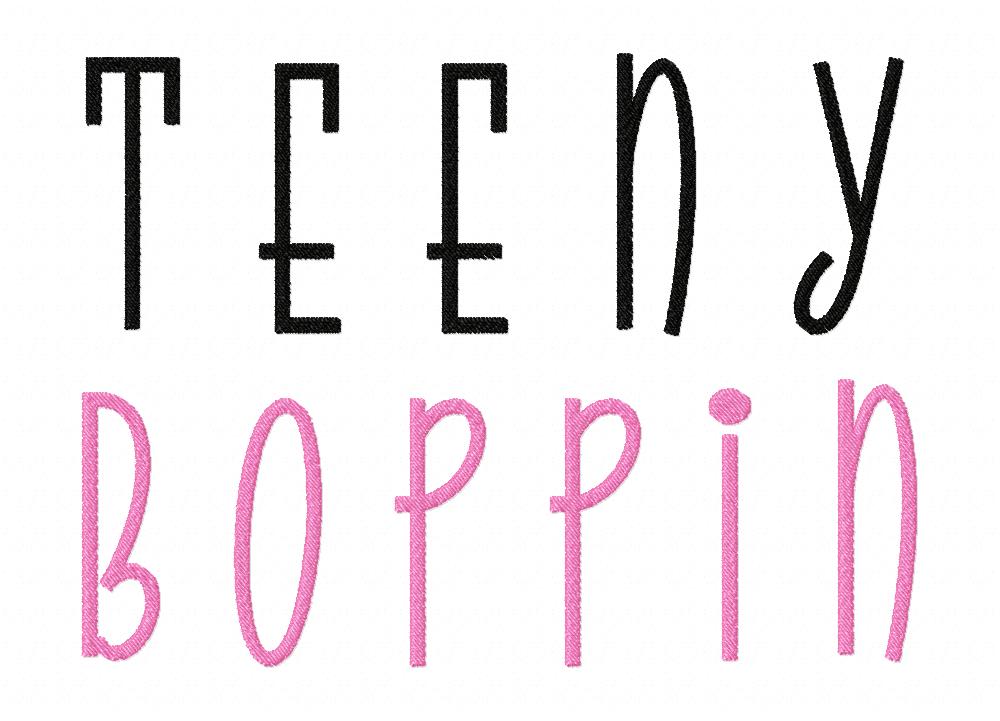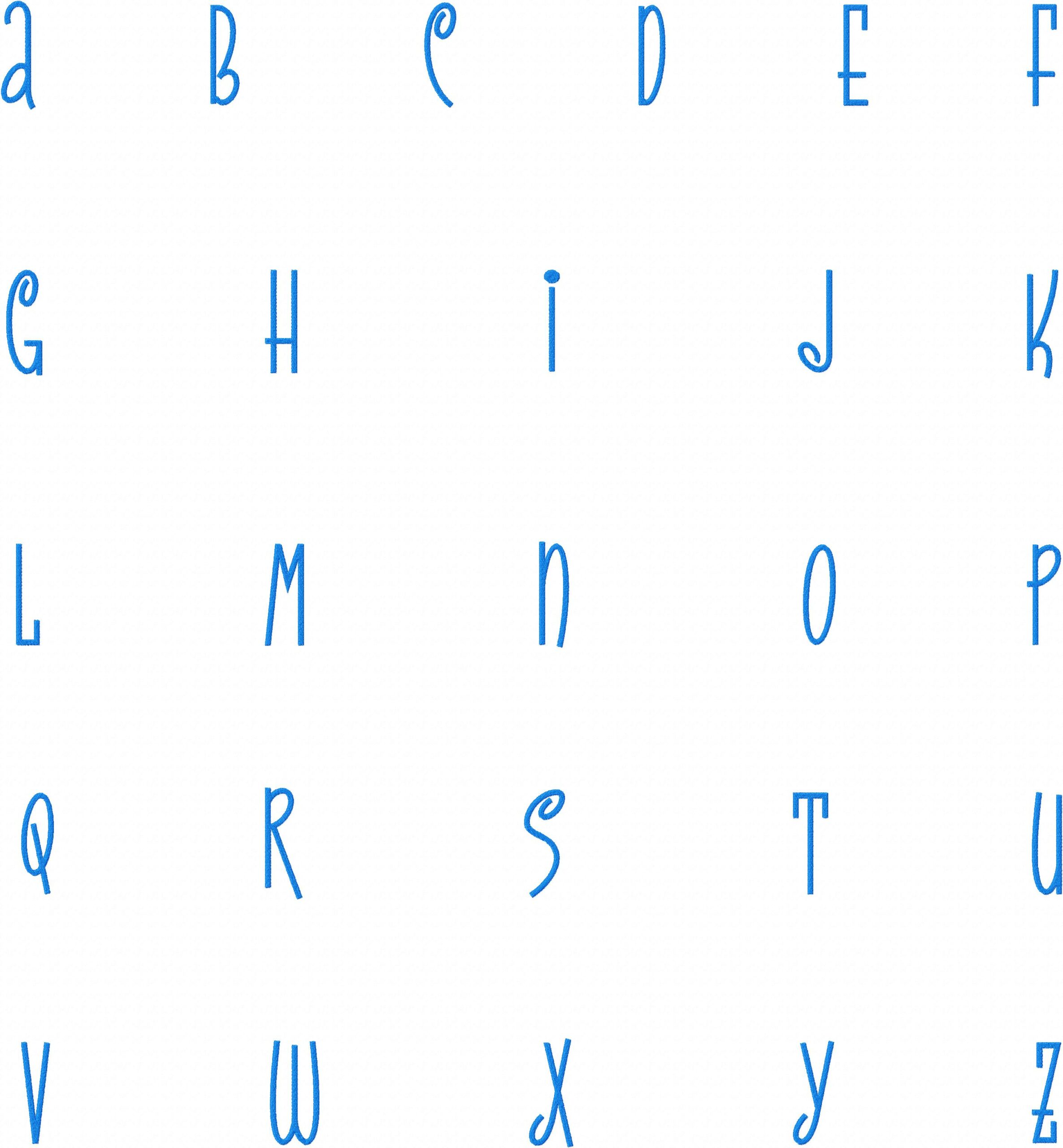
Add this pretty font design to any project that needs a cute touch!
The Teeny Boppin Machine Embroidery Font Set includes all Uppercase and Lowercase Letters, Numbers and Bonus Punctuation in all of the following sizes: 1″ 2″ & 3″